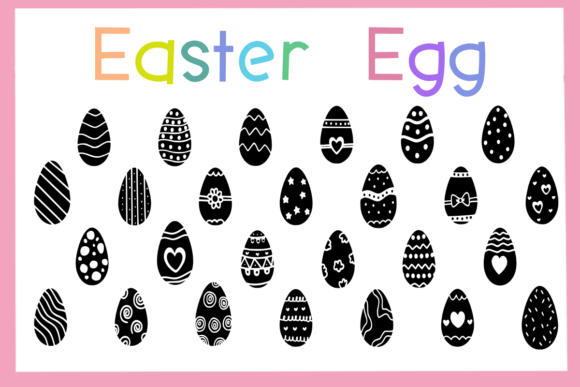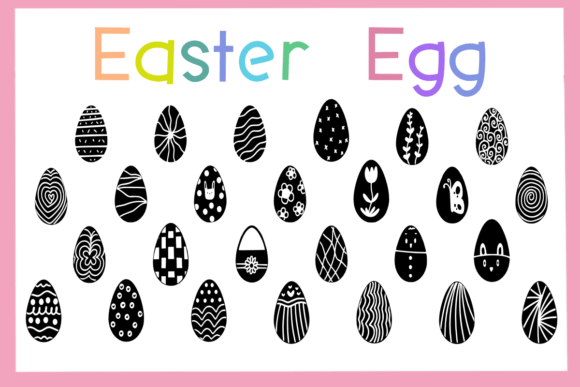
The Joy of Easter Egg Font: Unlocking Whimsy in Your Designs
Have you ever stumbled upon a quirky illustration or a playful pattern that sparked an idea for your next creative project? That’s exactly what happened to me when I discovered the Easter Egg Font – a delightful hand-drawn dingbats typeface that’s been a game-changer for my designs. Its charm and versatility have made it a staple in my toolkit, and I’m excited to share its magic with you.
The Easter Egg Font is more than just a fun font – it’s a valuable tool for designers looking to add a touch of whimsy to their work. Whether you’re creating workbooks, greeting cards, digital designs, or presentations, this adorable typeface is sure to bring a smile to your face and a spring to your step. With its endless possibilities for creative expression, the Easter Egg Font is an Easter egg (pun intended!) waiting to be discovered by designers of all levels.
Easter Egg Font Key Features
- Font Family: Easter Egg Font is a unique, hand-drawn font designed to resemble Easter eggs.
- Character Set: Includes a wide range of characters, including uppercase and lowercase letters, numbers, punctuation, and special characters.
- Unique Characteristics: Features a playful, whimsical design with intricate details and textures, making it perfect for adding a touch of Easter-themed charm to your designs.
Easter Egg Font Review
Overall, I found the Easter Egg Font to be a cute and playful addition to any design. ✨ Its whimsical feel is perfect for Easter-themed projects, Easter eggs, and even springtime-inspired designs. The font is highly customizable, with a wide range of color options and size adjustments. ✨
- Customizable colors and sizes
- Whimsical and playful feel
- Perfect for Easter and springtime themes
- Highly versatile and can be used in various contexts
However, I did encounter a few limitations with the Easter Egg Font. ⚠️ One major issue is its lack of flexibility in terms of character sets and special characters. The font only includes basic letters and numbers, making it difficult to use for more complex designs or projects that require a wide range of characters.
- Limited character set (only basic letters and numbers)
- No support for special characters
- May not be suitable for complex designs or projects
Despite its limitations, I would still recommend the Easter Egg Font for any Easter or springtime-themed project. Its playful feel and high customizability make it a great choice for designers looking to add a touch of whimsy to their designs.
Use the Easter Egg Font to add a playful touch to your designs, such as:
– Easter or spring-themed projects
– Children’s party invitations or decorations
– Whimsical or creative branding
To get the most out of the Easter Egg Font, experiment with different sizes, colors, and combinations with other fonts.
– Try using the font in bold or italic styles for added emphasis.
– Combine the font with other playful elements, such as icons or graphics.
– Experiment with different text arrangements and layouts to create visually appealing designs.